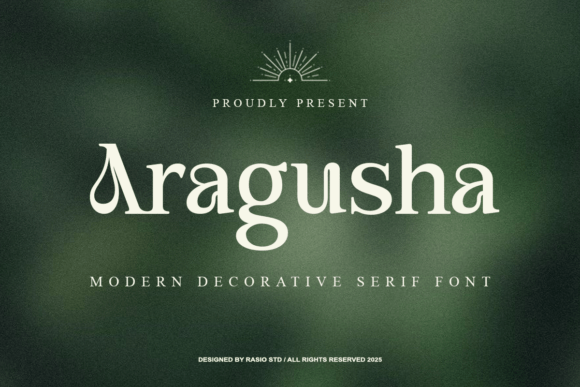
This modern decorative serif font has been a game-changer for my design projects, and I’m excited to share my experience with you. Whether you’re a designer, crafter, or creative hobbyist, you’ll love the refined elegance and distinctive artistic details that Aragusha brings to the table.
- ✅ Elegant and refined design, perfect for luxury branding and high-end projects
- ✅ Distinctive artistic details that add a touch of sophistication
- ✅ Highly versatile, suitable for a wide range of applications, from magazine headlines to social media visuals
- ✅ Works beautifully in various languages, thanks to its extensive character set
- ⚠️ Some users may find the font’s decorative elements a bit too ornate for certain projects
- ⚠️ May not be the best choice for body text or long-form content, as it’s designed for headlines and display text
- Experiment with OpenType features, such as ligatures and stylistic alternates, to add an extra layer of elegance to your design
The Story Behind Aragusha: Designer Inspiration
Aragusha was designed with the goal of creating a font that blends refined elegance with distinctive artistic details. The designer, inspired by the world of luxury and fashion, set out to create a typeface that would be perfect for high-end branding and editorial design. With its unique blend of classic and modern elements, Aragusha is sure to make a statement in any design project.
Q: What is Aragusha font best used for?
A: Aragusha is perfect for luxury branding, fashion editorials, magazine headlines, boutique logos, beauty and cosmetic branding, product packaging, advertising layouts, and social media visuals.
Q: Does Aragusha support OpenType features?
A: Yes, Aragusha supports OpenType features, including ligatures, stylistic alternates, and glyphs, allowing you to create stunning typography.